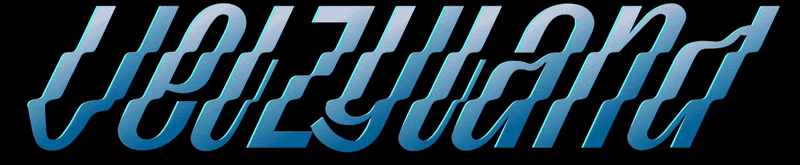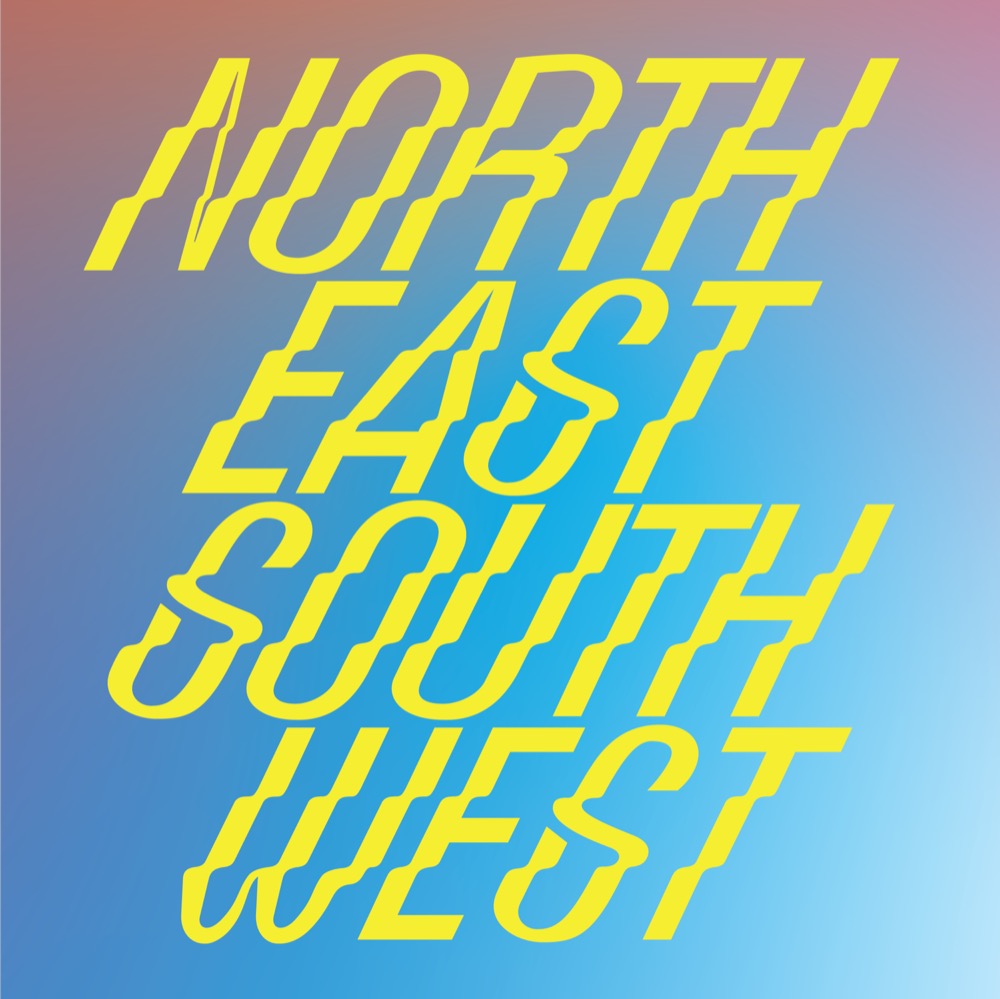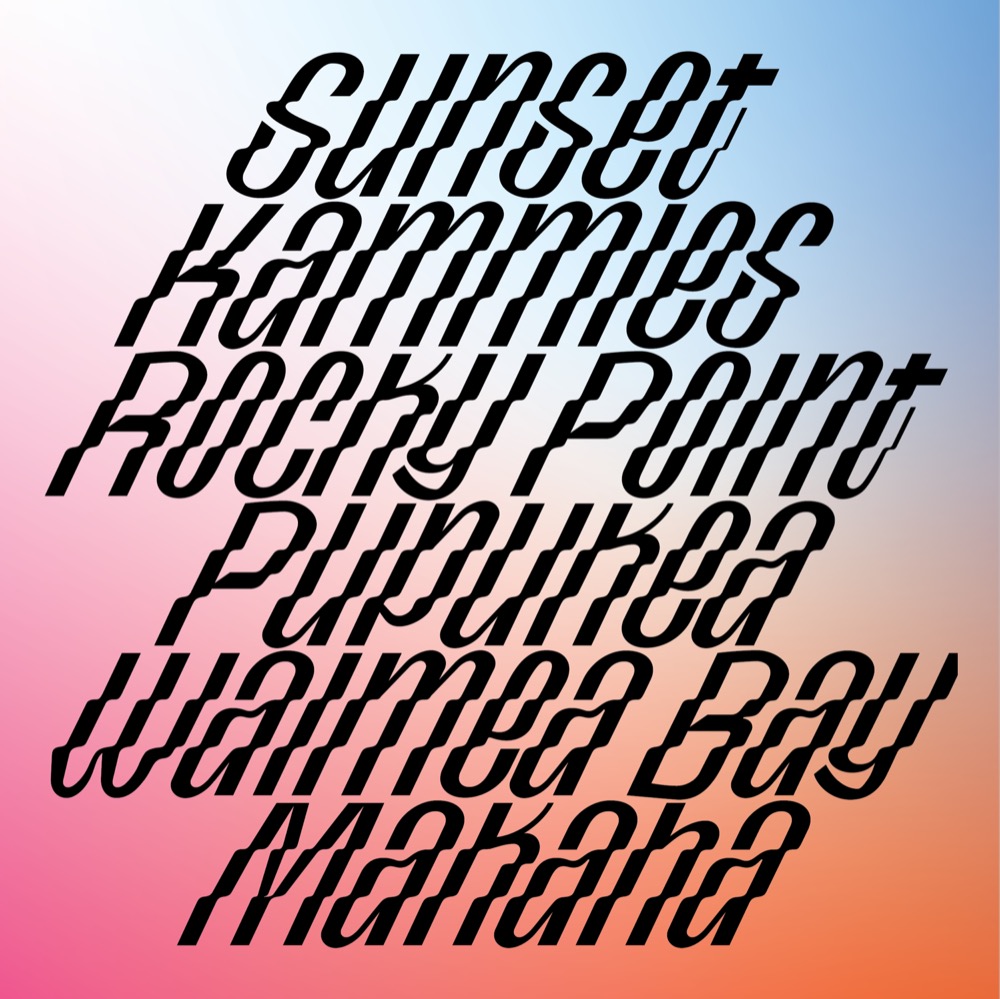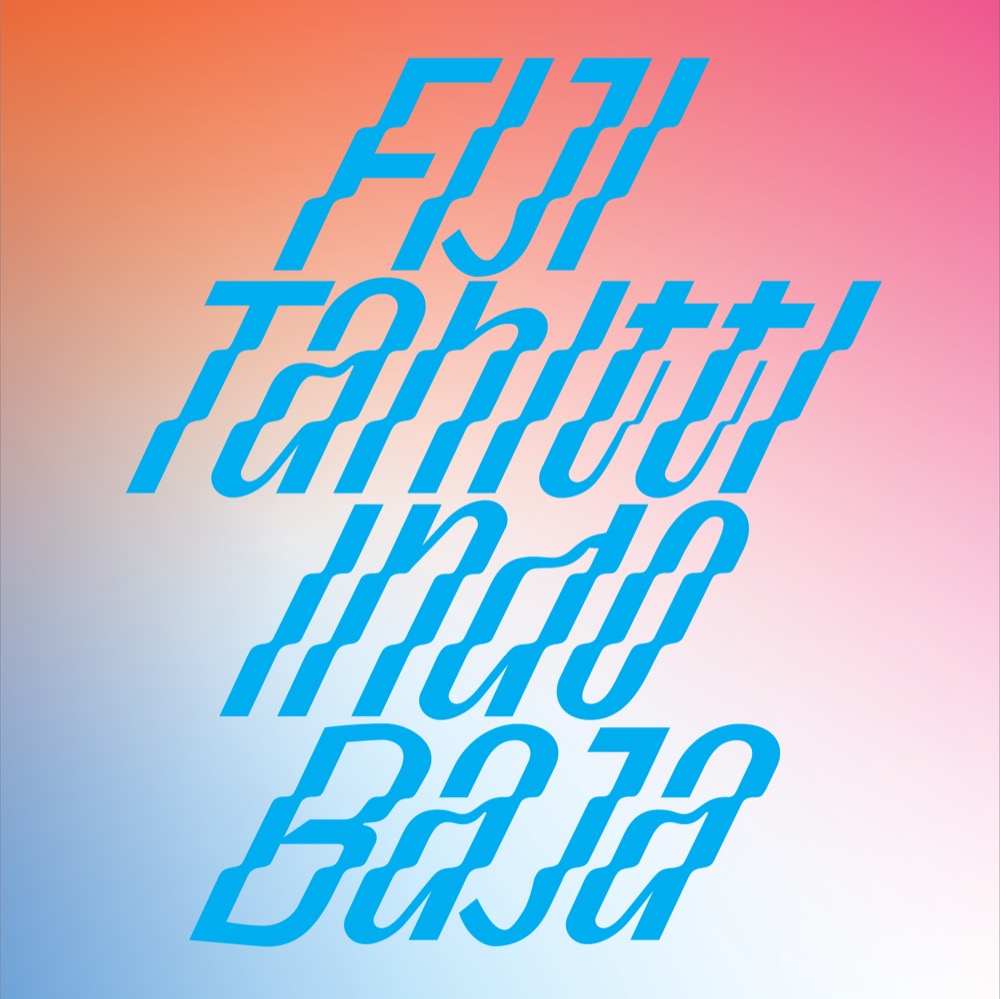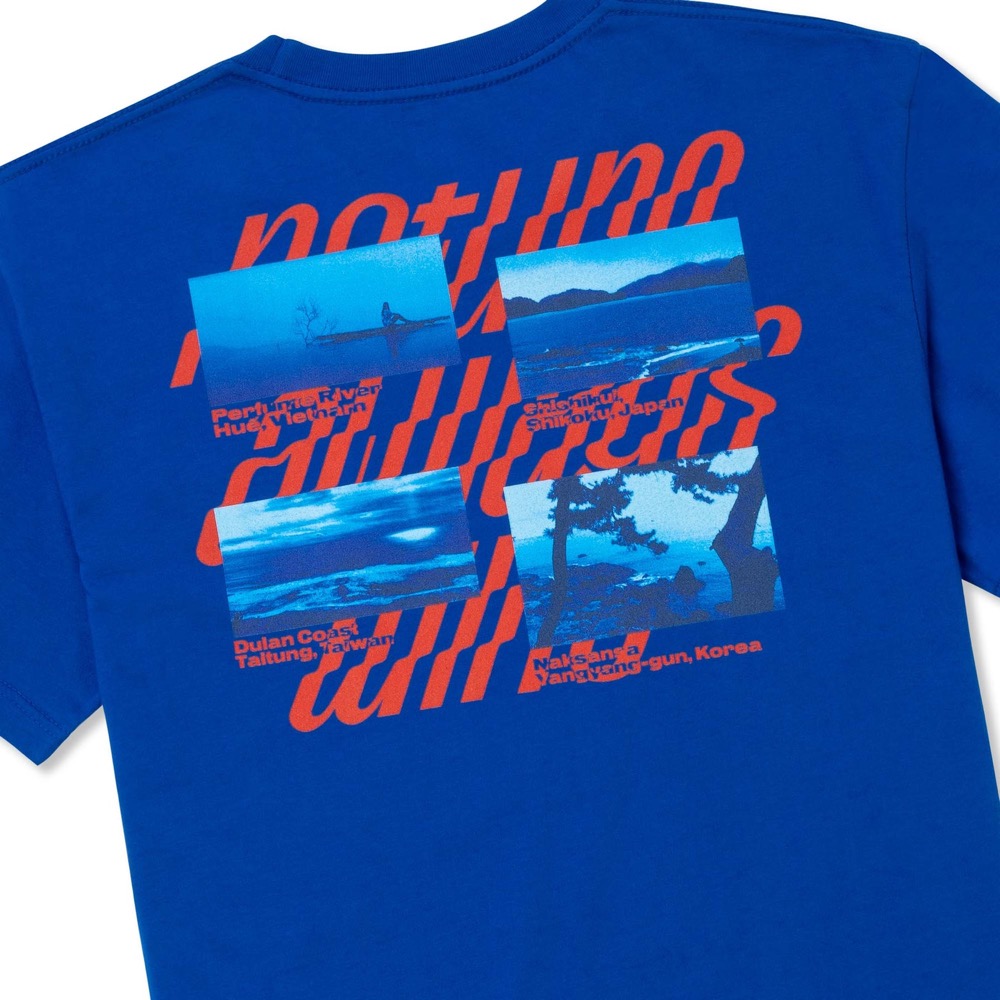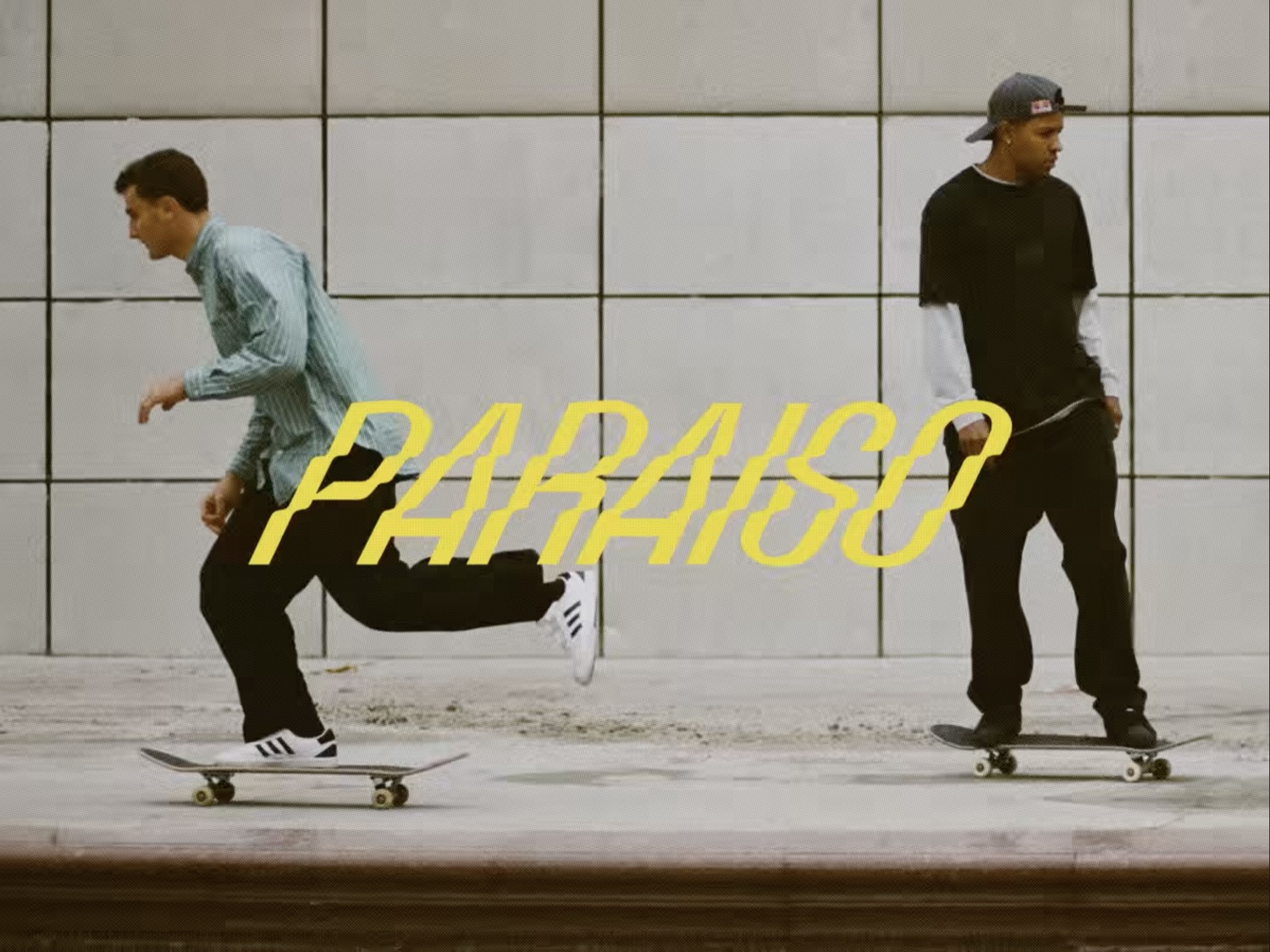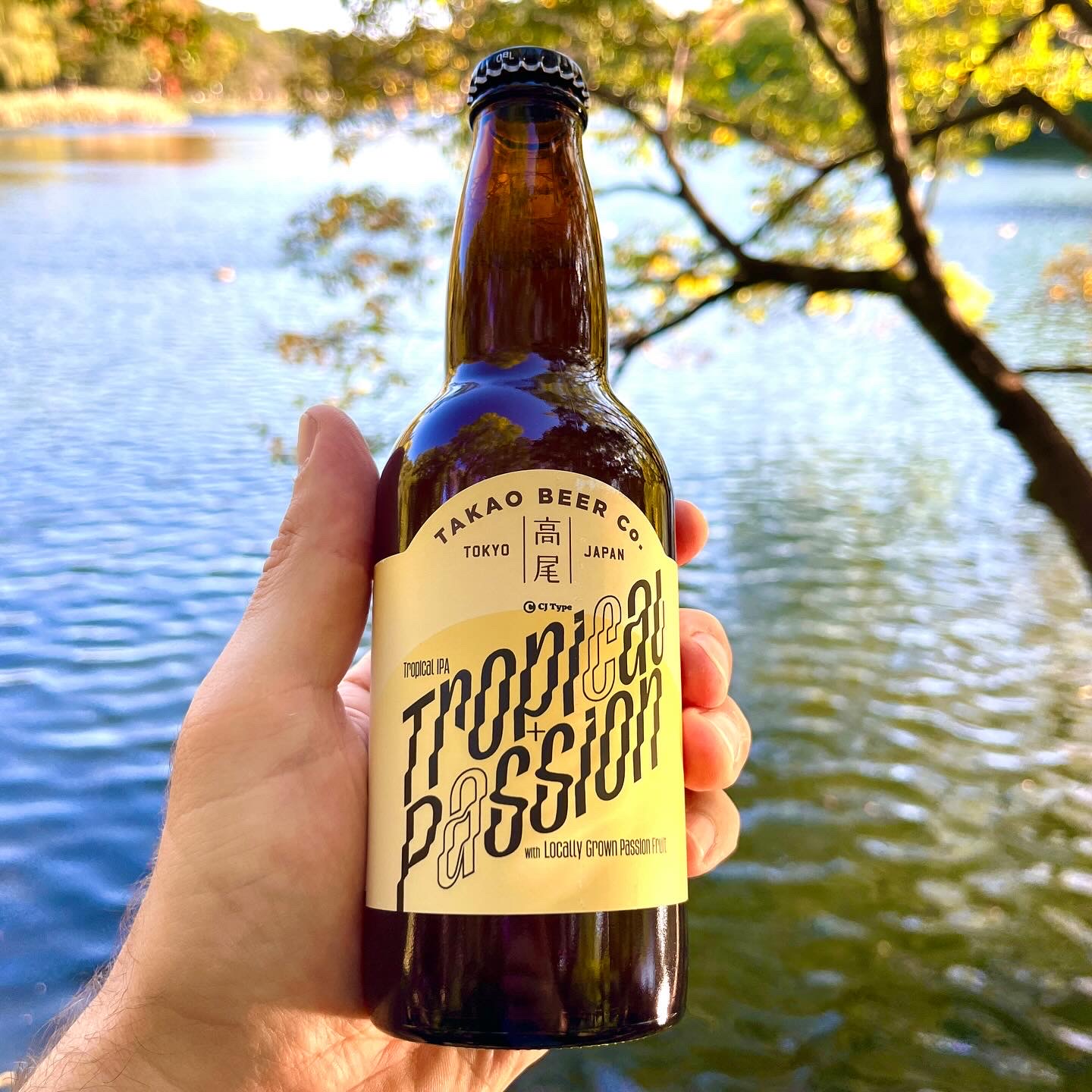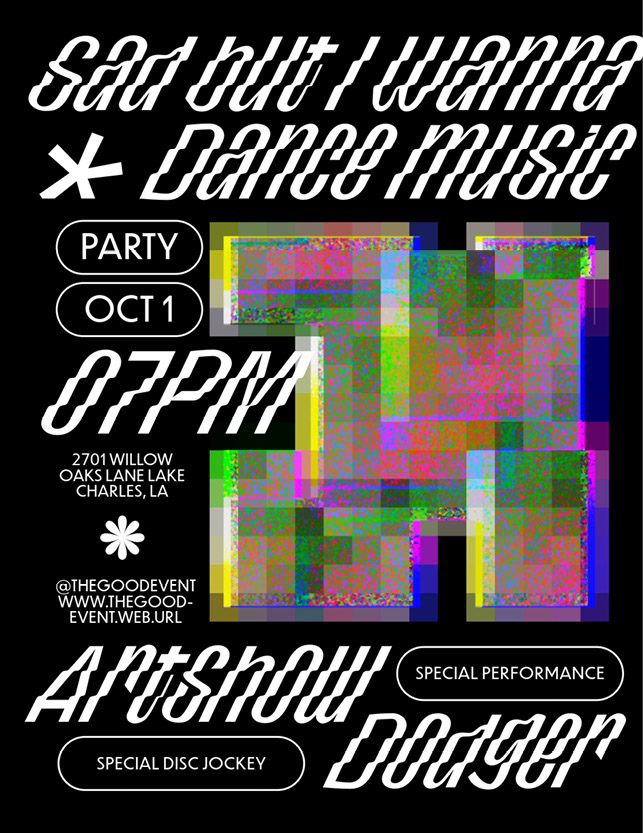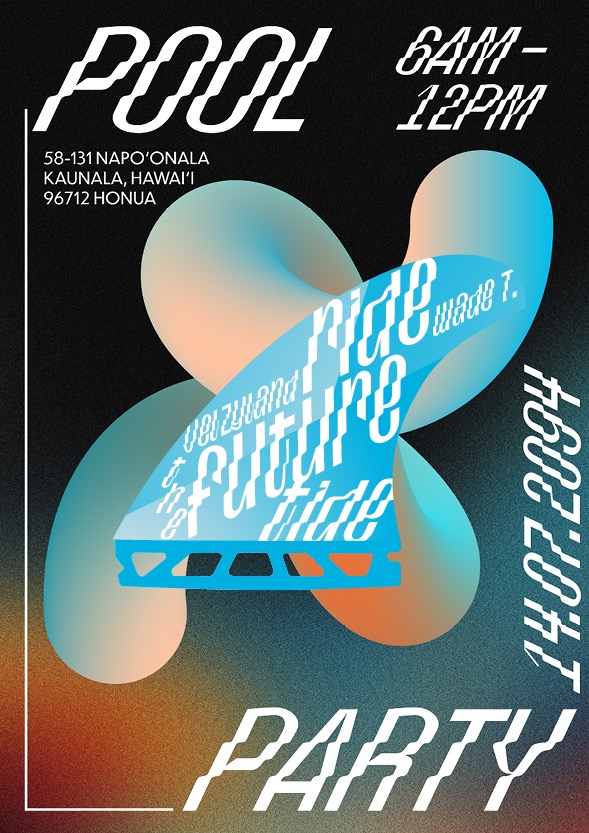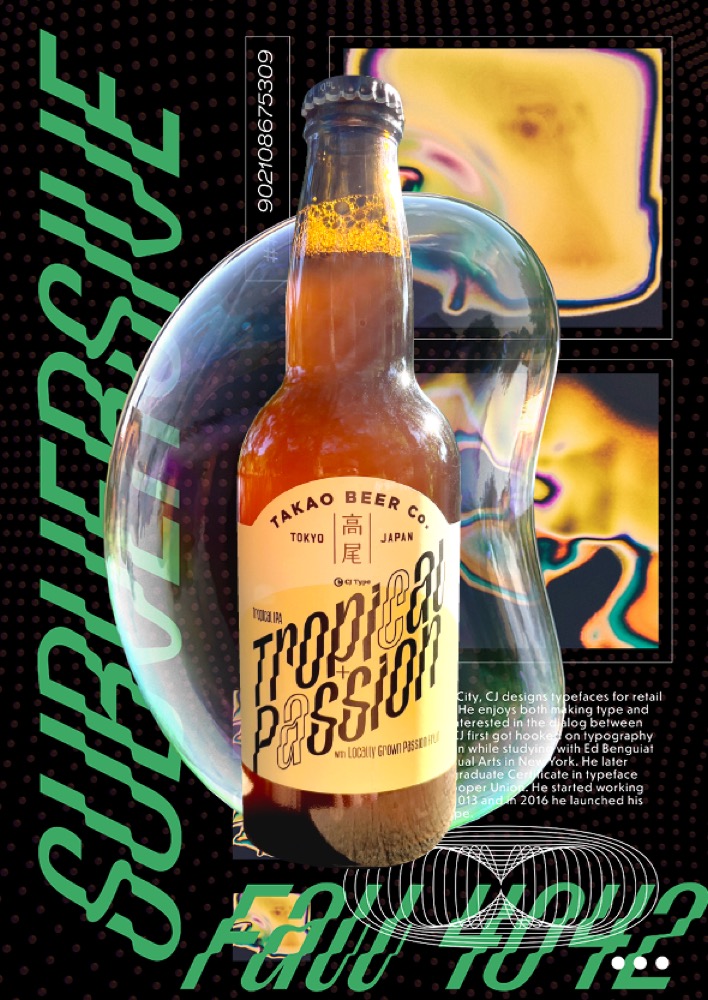
Velzyland is an expressive display typeface shaped by the rhythm of waves.
Velzyland originated from custom lettering for the CJ Type × Vast capsule collection. Vast is a surf lifestyle clothing company and the collection was design around the concept “Waves Connect Us All.” The letterforms echo the steep flowing slope of the waves at Velzyland, a famed surf break on Oʻahu’s North Shore—just a stones throw from CJ’s birthplace in Kahuku.
Velzyland isn’t just inspired by surfing culture—it embodies the rhythm of the waves within its very letterforms. Instead of mimicking vintange surf typography, its flowing contours and sharp stroke endings create a contemporary balance between organic movement and digital precision.
Designed as a “unicase” typeface, Velzyland is full of interchangeable upper- and lowercase alternates, allowing for fluid alternation between letterforms—perfect for logos, expressive headlines, or just to vary the texture of your typography.
Velzyland comes complete with an extended set of punctuation and accented characters supporting most Eastern and Western European languages.
Velzyland includes both tabular and proportional figures as well as currency symbols, basic math symbols, and punctuation.
To make use of the extreme slant angle of Velzyland, try using a diagonal baseline. This works especially well with extra tight letter spacing.
Velzyland’s letterforms vibrate at different frequencies depending on the tracking or letterspacing you choose, and they love to be animated!